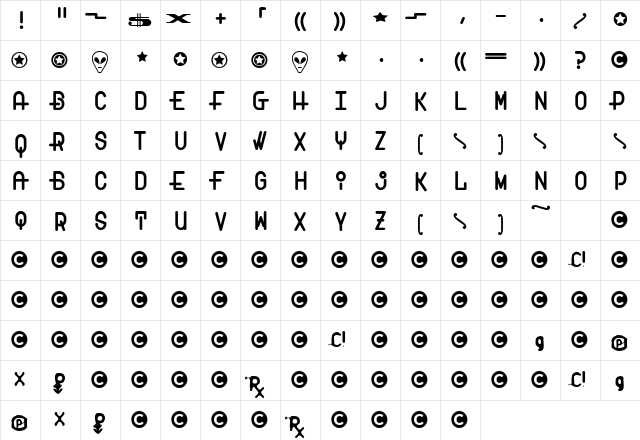
Transam Regular
Design Context for Transam Typeface
Transam is a composed and adaptable typeface that performs quietly and consistently across a wide range of design contexts.